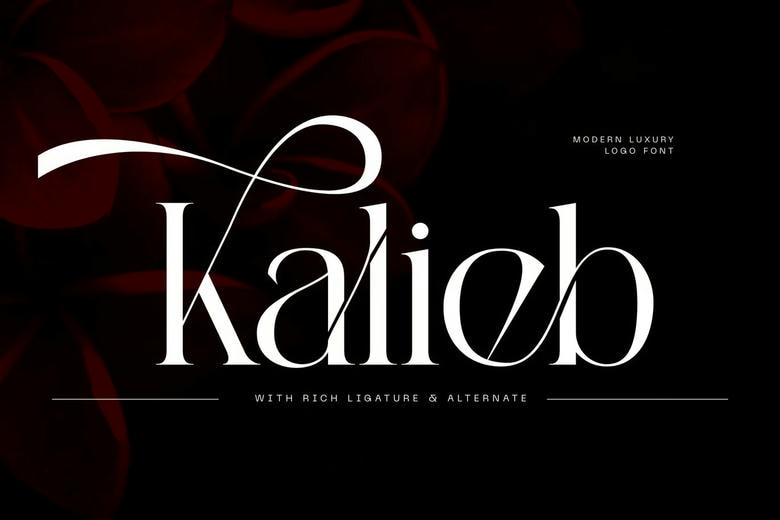
Kalieb Font
Kalieb Luxury -Branding Logo Font. Kalieb Luxury is an exquisite exertion of typographic perfection that promises to brilliantly enrich a variety of design-related tasks, such as logos & branding, social media posts, advertisements, product designs and so on.
Kalieb Luxury Logo Font